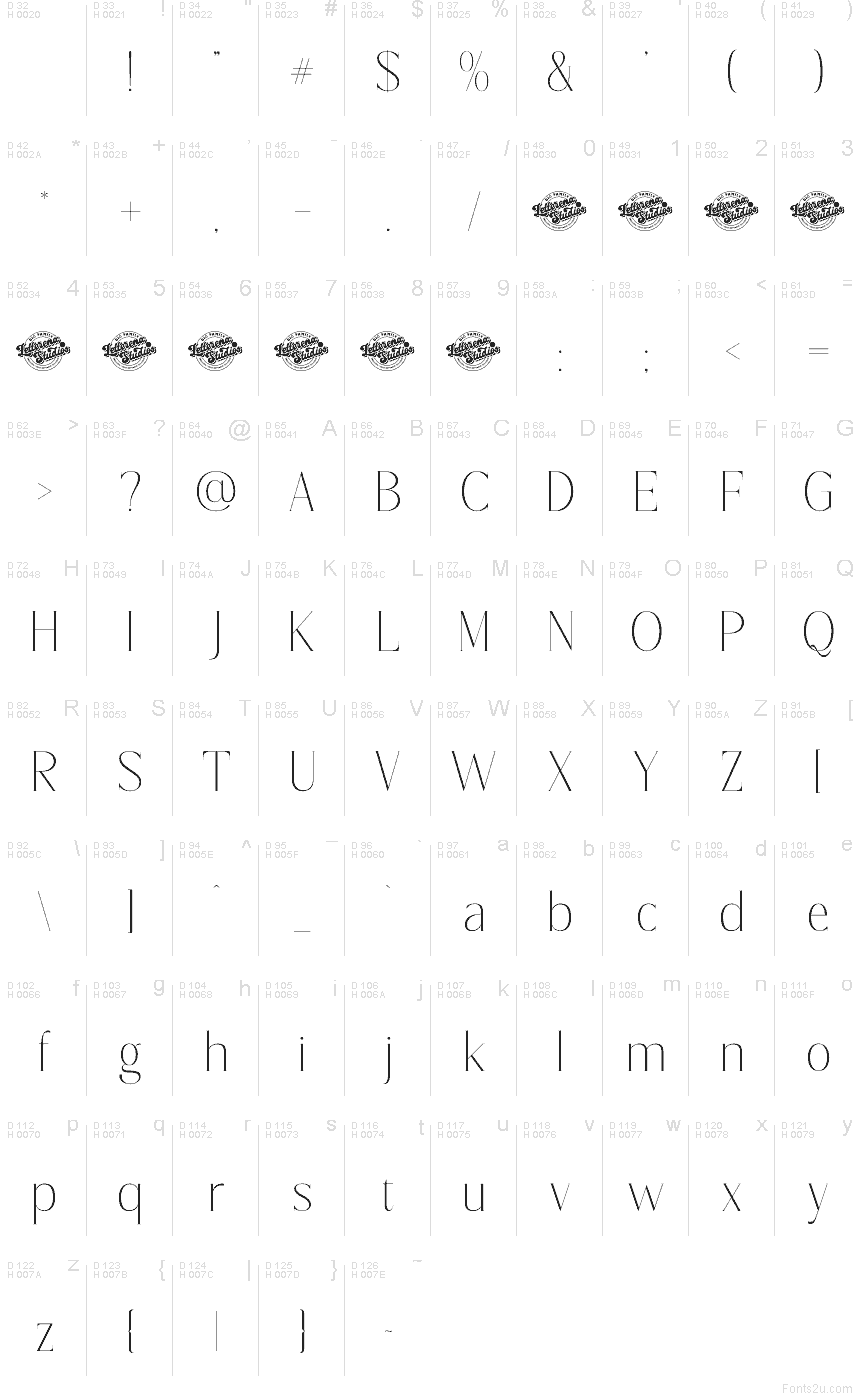
Lisandra DEMO VERSION
Lisandra font by Storytype Studio is a free serif font that paints words with the thinnest, most refined strokes. Its letters feel like they were drawn with an inky drafting pen—tall, poised, and delicately narrow—giving every word a sense of quiet luxury. The generous vertical rhythm and whisper-thin curves create an airy, editorial mood that feels both modern and timeless.
Using Lisandra, this free font shines on fashion branding, magazine covers, perfume packaging, wedding invitations, boutique logos, portfolio sites, and social media graphics. The slim forms love generous letterspacing and larger sizes where their elegance can really breathe. For a simple pairing, match Lisandra with a clean geometric sans serif for body text to keep layouts crisp and contemporary.